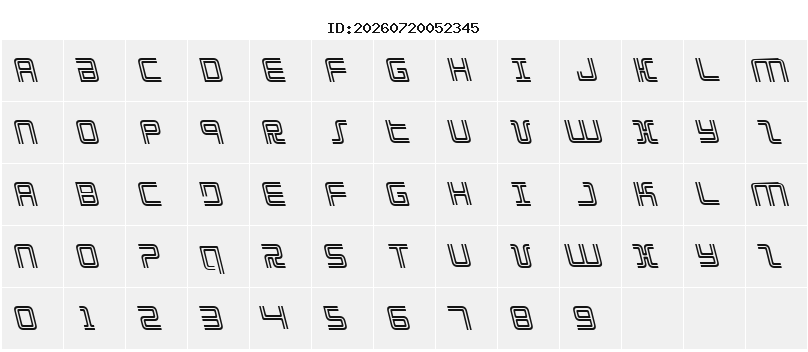
Election Day Leftalic Preview
About Election Day Leftalic.ttf
Election Day Leftalic.ttf is a modern, elegant sans-serif font designed for ultimate readability and visual harmony. Perfect for branding, headlines, web design, and print materials.